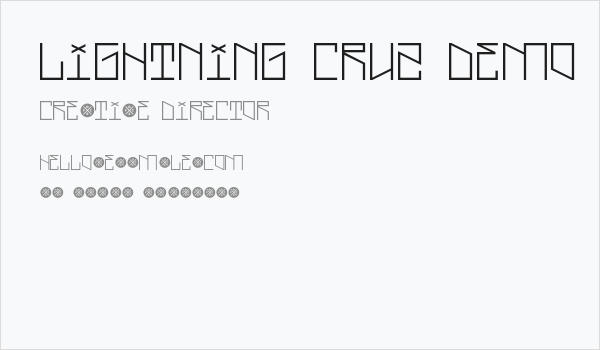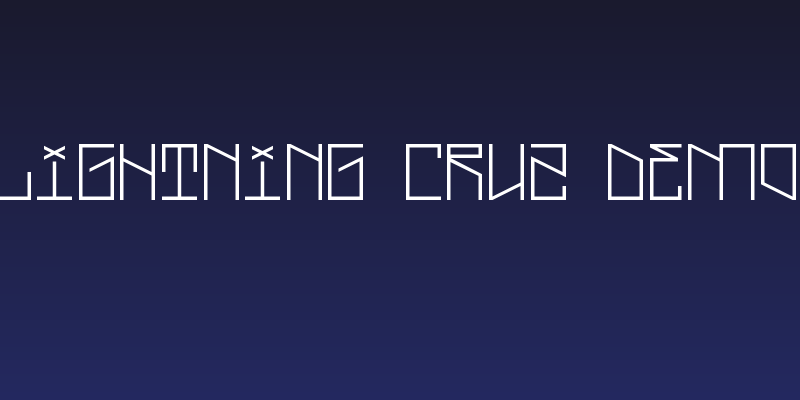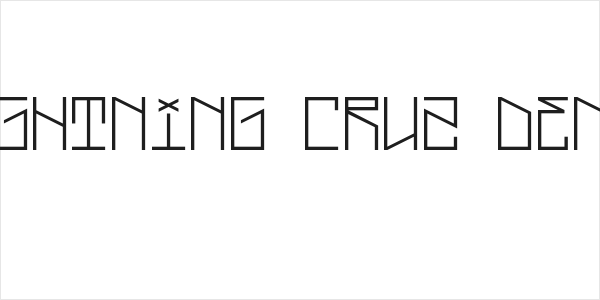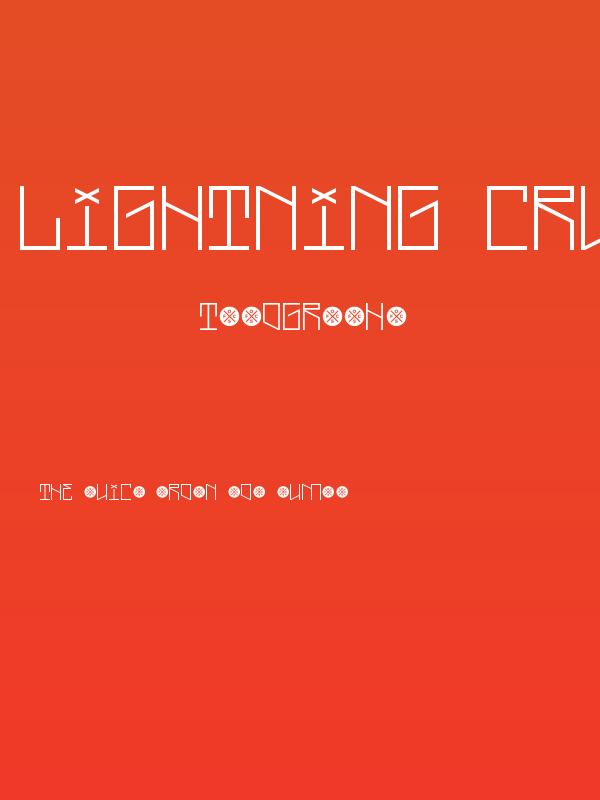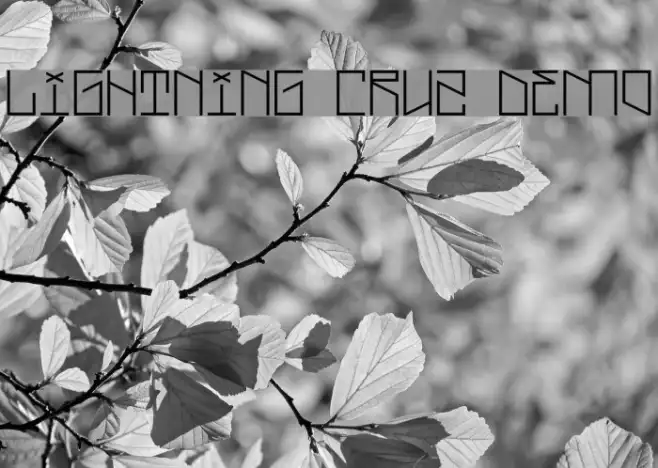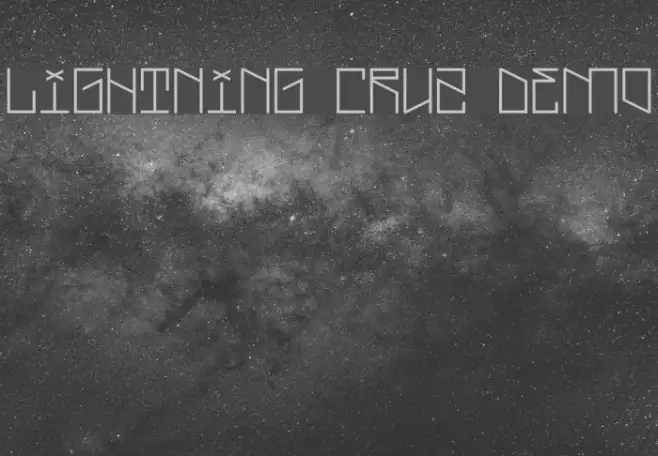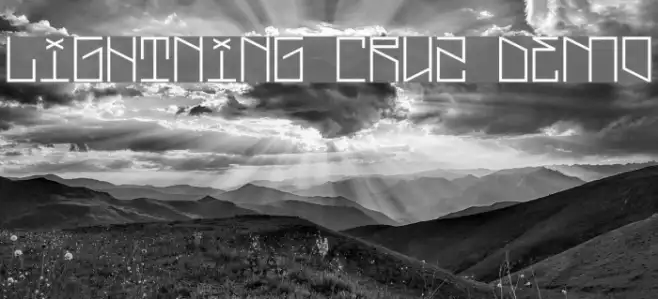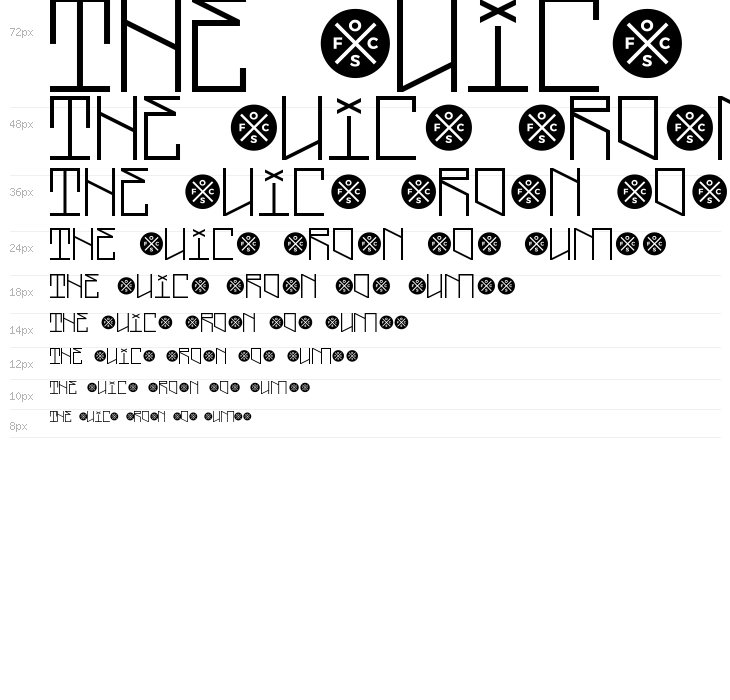
Lightning Cruz Demo Font
Lightning Cruz Demo Description
This font features a highly geometric and angular design, characterized by its sharp lines and distinct corners. The letters are constructed with a consistent stroke width, giving it a uniform appearance. The uppercase characters exhibit a unique architectural style, with some letters incorporating diagonal lines and unexpected angles, creating a sense of movement and dynamism. The lowercase letters maintain this geometric theme, though they are slightly more condensed. The numerals and special characters follow the same design principles, ensuring cohesion across the character set. This font's modern and edgy aesthetic makes it suitable for projects that aim to convey a futuristic or avant-garde feel.
| Proposed Projects | Ideal for futuristic branding, tech-related designs, album covers, and modern art projects. |